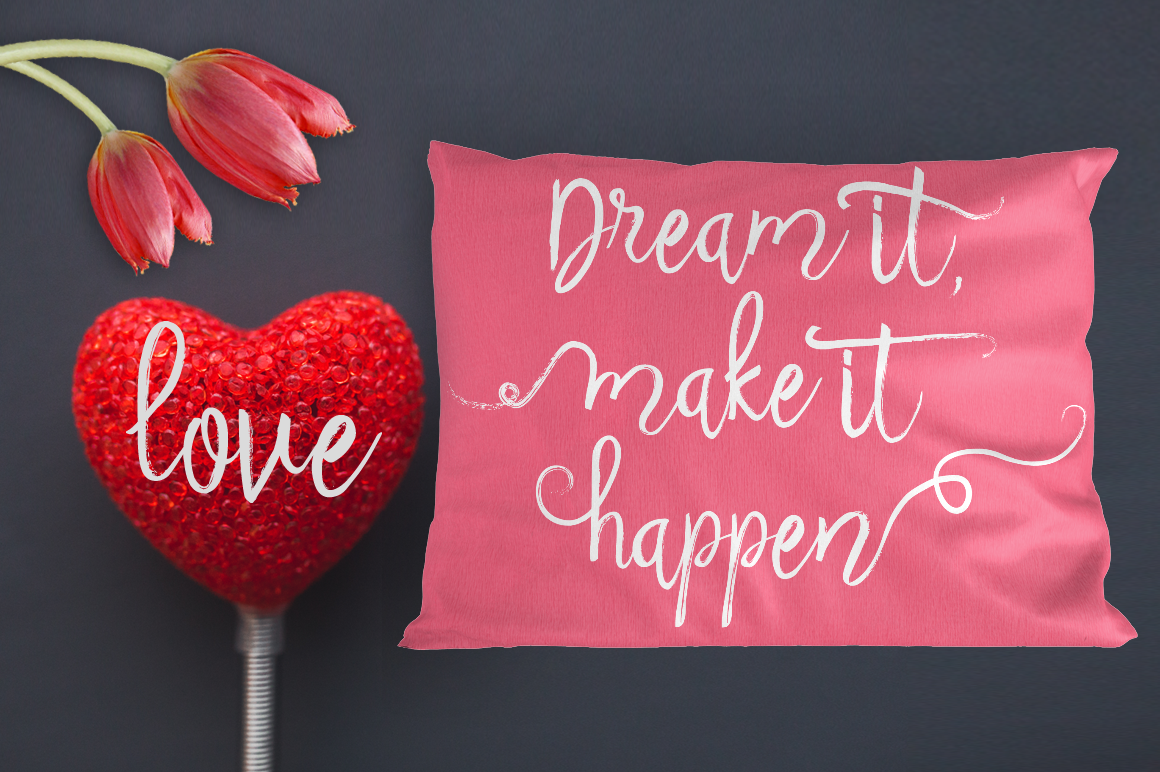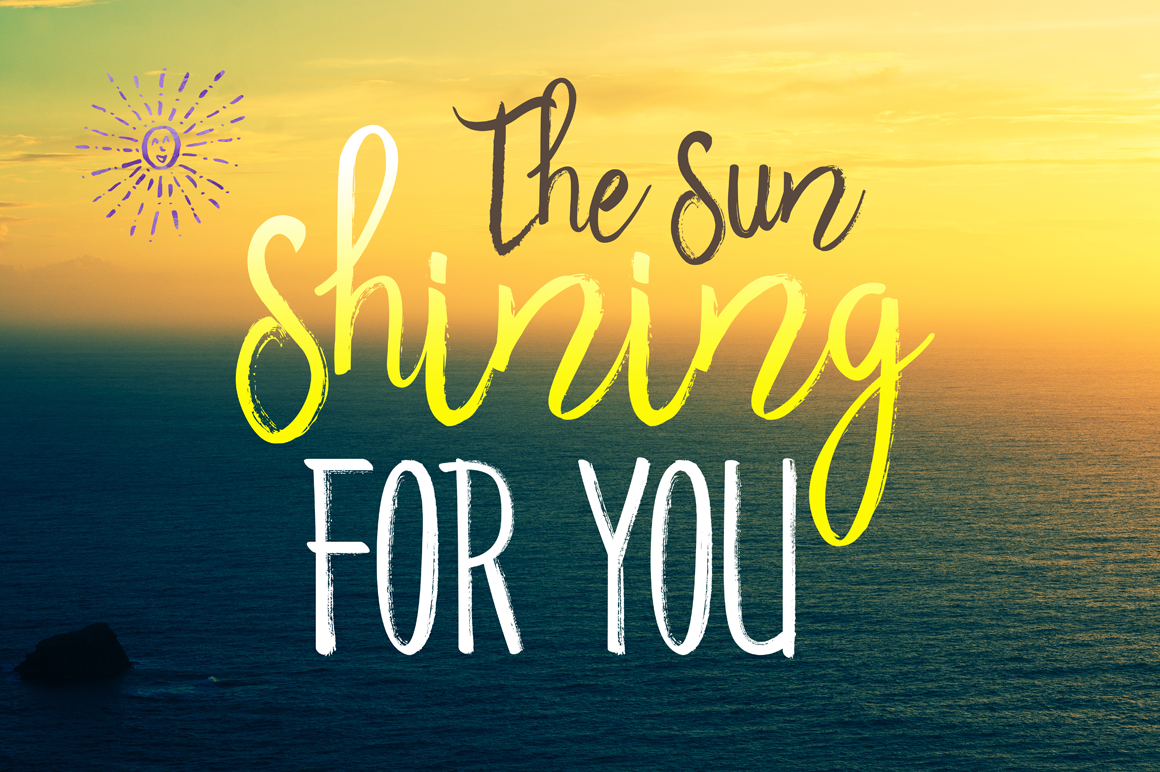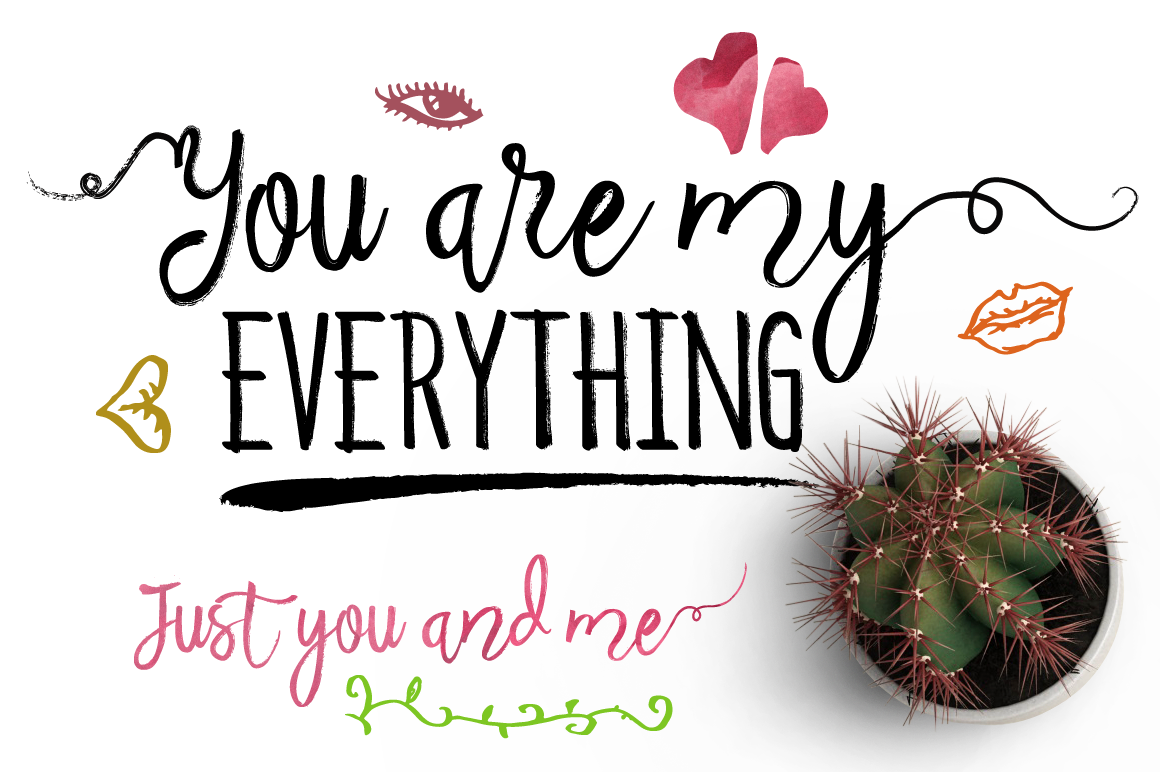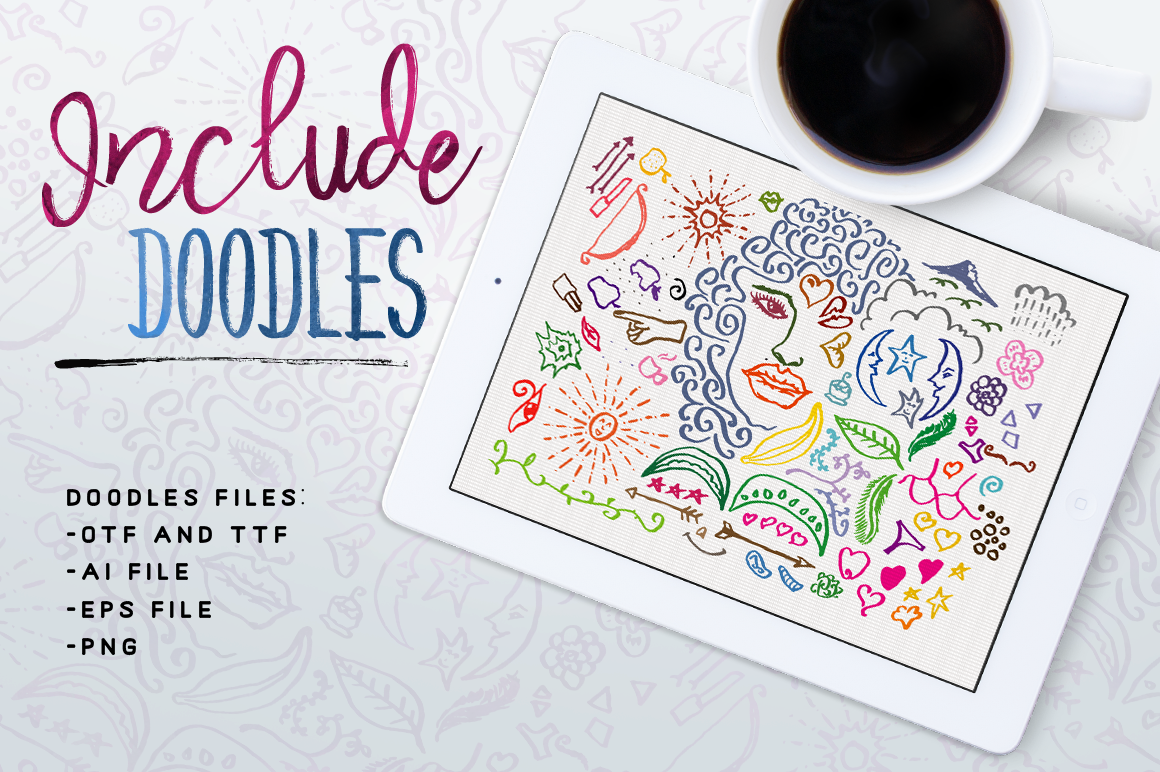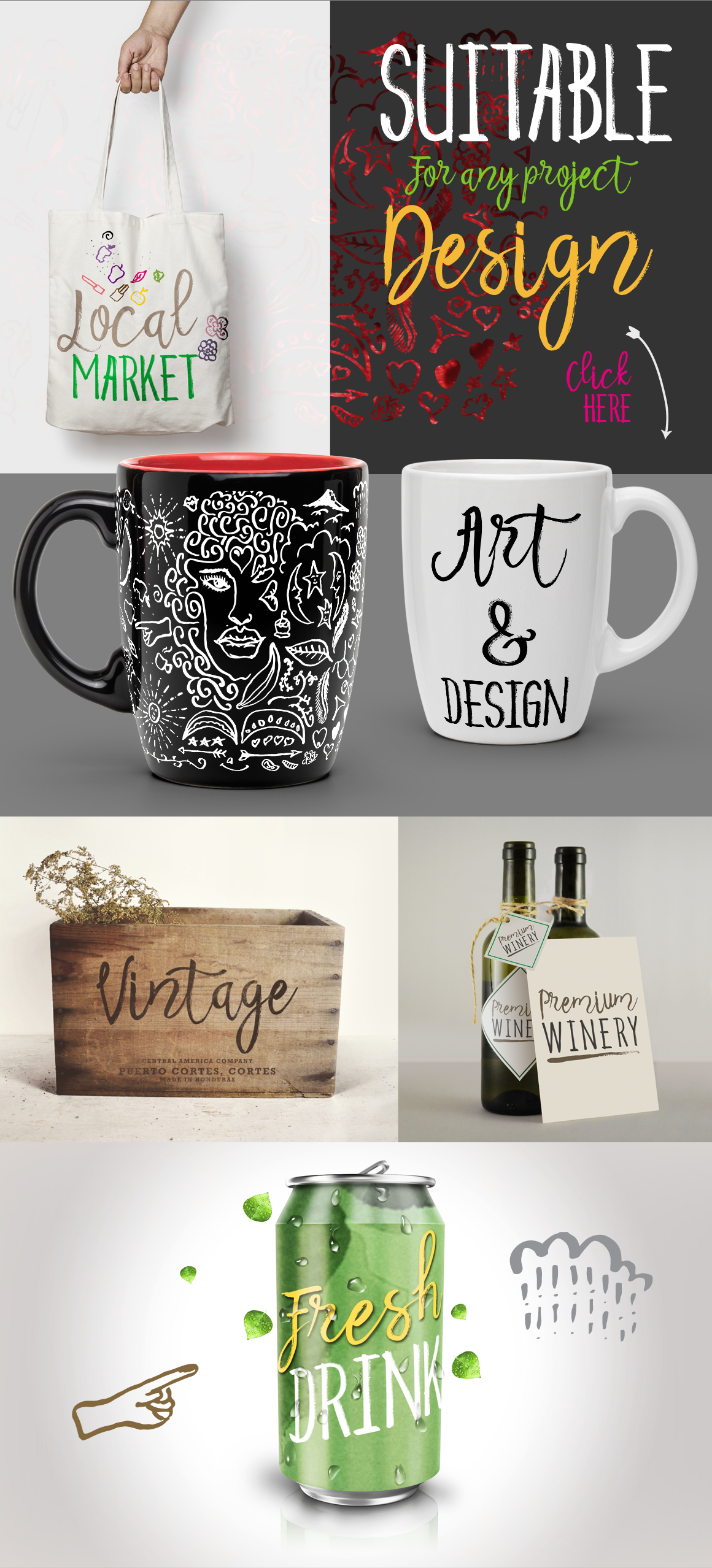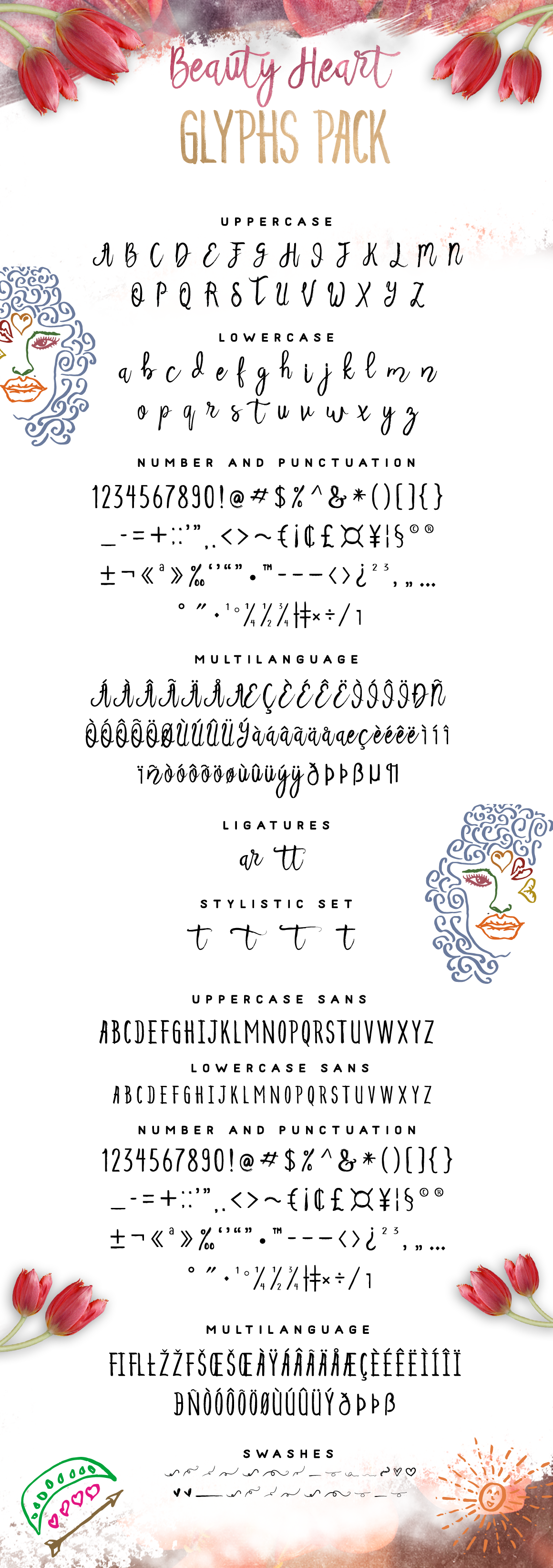
Beauty Heart Font
About Beauty Heart Font
The Beauty Heart Script is a stunning handlettered Brush font.
Created with natural brushes to create a modern, yet vintage style. It’s suitable for a large range of different types of designs, ranging from wedding designs, apparel & fashion, badges, stickers and much more.